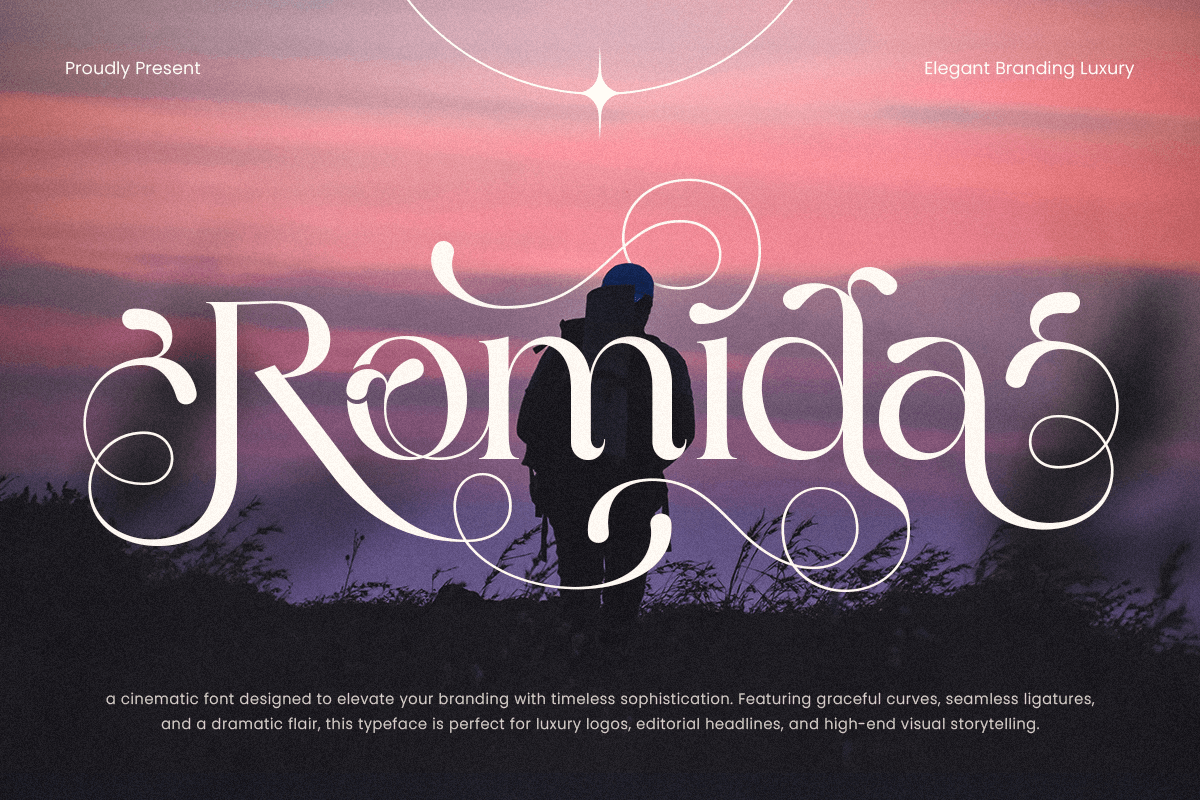
Romida
-Elegant Branding Serif FontRomida - Elegant Branding Serif Font
Romida is an elegant branding serif font designed to elevate your design projects with a refined, upscale aesthetic. Perfect for creating sophisticated logos, classy branding, and premium design elements, Romida combines graceful letterforms with bold sophistication for a high-end appeal.
Whether you’re working on an exclusive brand identity, a high-class product line, or a chic editorial project, Romida ensures your designs stand out with timeless elegance. Its versatility allows it to be used across a range of upscale projects, from fashion and beauty to exclusive services and high-end events.
Romida – Elegant Branding Serif Font Features
Elegant and refined letterforms with a luxurious design
Ideal for logos, branding, packaging, and high-end design projects
Clean, professional design with timeless appeal
OpenType features for advanced typographic styling
Create a lasting impression with Romida – the perfect font for Classy branding and elegant design. ✨💎